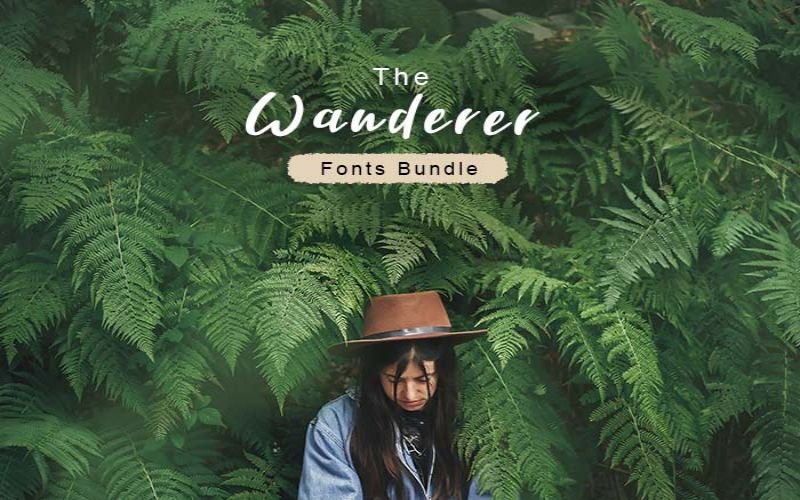
Discover a carefully curated collection of fonts perfect for branding, packaging, editorial work, web and print design, and more. The Wanderer Fonts Bundle brings together a variety of styles — from handwritten and script to modern and decorative — so you’ll always have the right typeface for your project.
Highlights
- A diverse mix of styles: handwritten, script, modern, flared, and decorative
- Ideal for beachy, vintage, modern, and handcrafted design aesthetics
Fonts Included
- Black Label (script)
- Hey Kent
- Battalion (handwritten)
- Brighton Beach
- Best Choice
- Dogmatic
- Dark Star
- Desert Strike (modern script)
- Fully Flared
- Great Wall (handmade)
- Health (script)
- Handsome Devil (handwritten script)